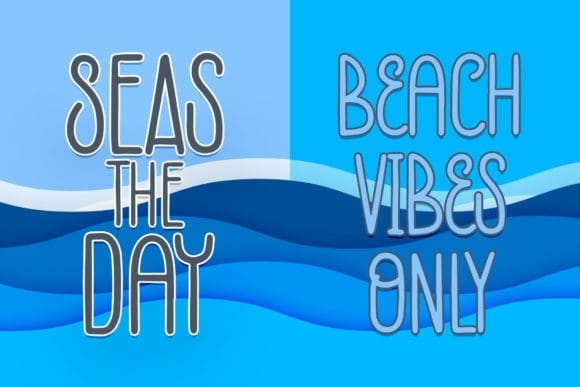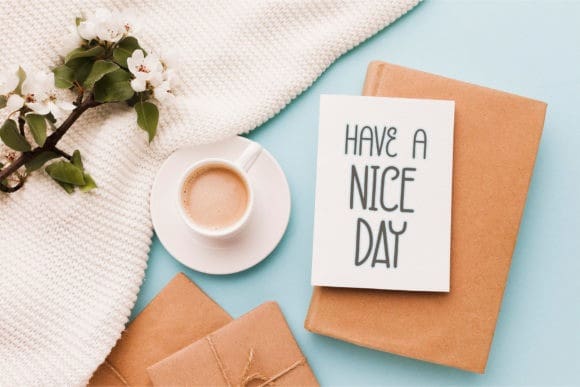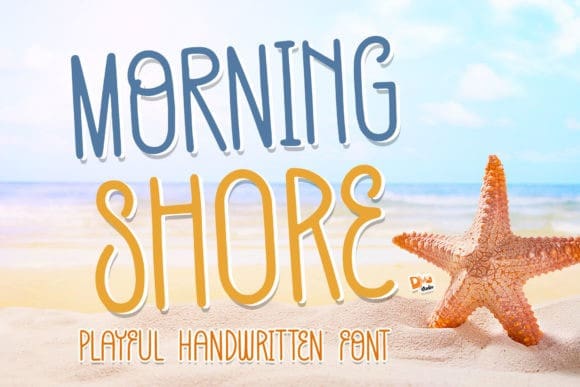
Morning Shore Font
Morning Shore Font is a playful and natural handwritten font. Whether you’re using it for crafts, digital designs, presentations, or making greeting cards, this font has the potential to become your favorite go-to font, no matter the occasion!